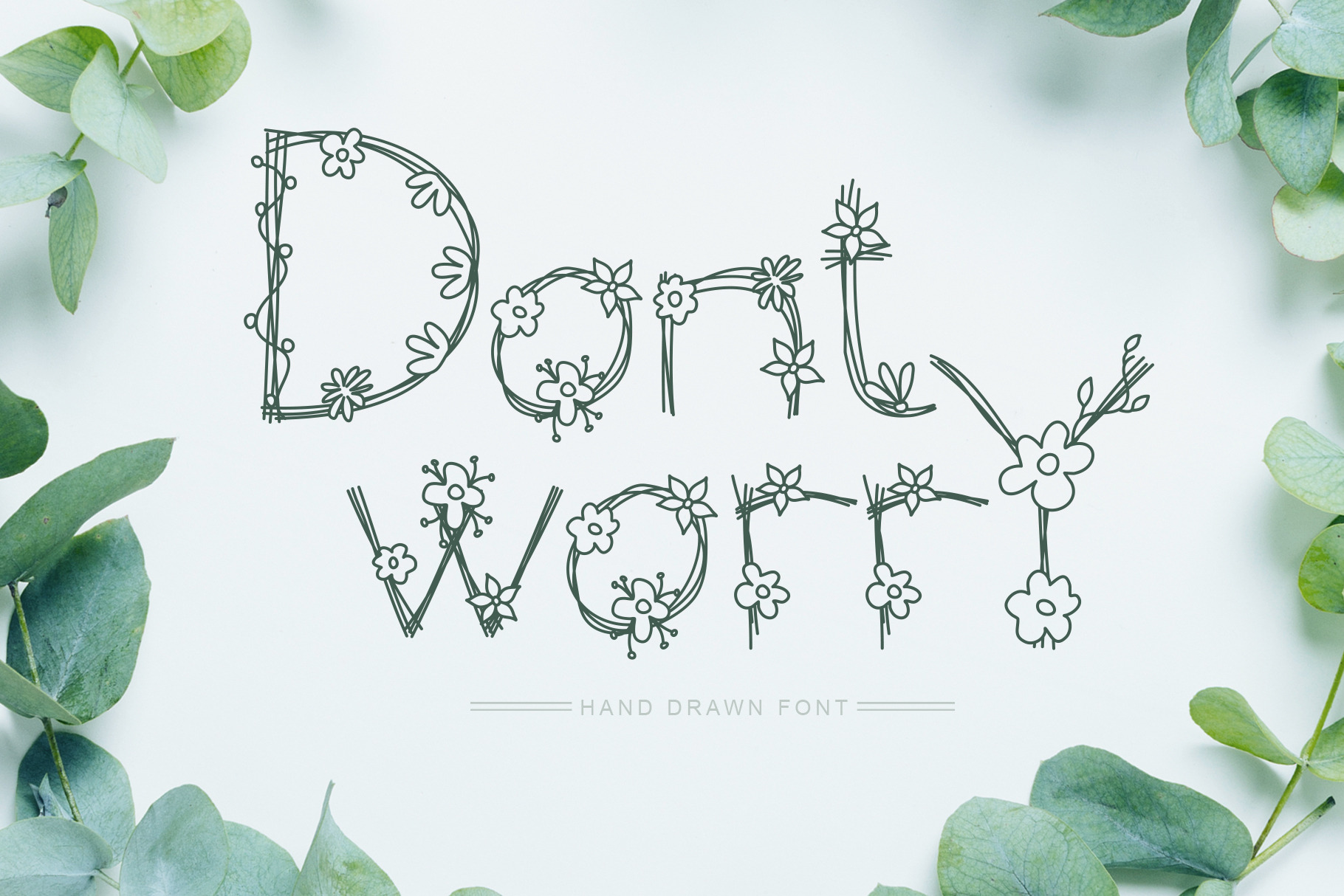
Dont Worry Hand Drawn Font includes unique letters with summer flourish monoline flowers and leaves. It's fine for wedding or Valentines ornament greeting cards, logo, invitations, etc. Elegant ethnic calligraphic lines give romantic flower freshness to your handmade design.
Hand drawn scandinavian spring Font is mapped to regular and bold keyboard keys. Regular is with line blossom flowers and bold only line without ornament. You don't need any additional programs to use them. Just install font, type and go!